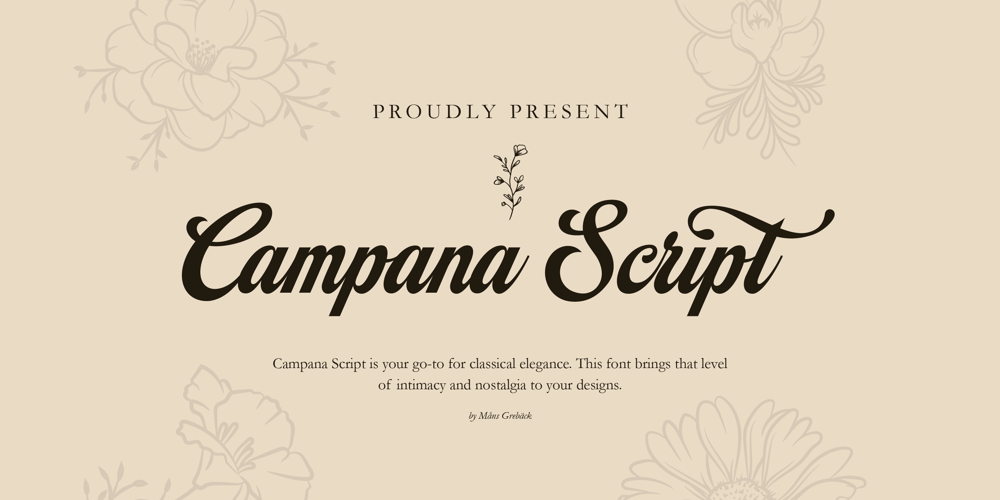
Campana Script Font Family was designed by Måns Grebäck and published by Mans Greback. Campana Script contains 4 styles and family package options. Campana Script is your go-to for classical elegance. Picture walking into an old bookstore and discovering a handwritten love letter tucked inside a dusty novel. This font brings that level of intimacy and nostalgia to your designs. Designed with heavy lines and intricate swashes, Campana Script suits formal applications like wedding invitations, certificates, and classic logotypes. Use underscore _ to make a swash. Example: Deco_rative Use multiple underscores to make different underlines. Example: Candy__shop Campana Script is built with advanced OpenType functionality and has a guaranteed top-notch quality, containing stylistic and contextual alternates, ligatures, and more features; all to give you full control and customizability. It has extensive lingual support, covering all Latin-based languages, and includes all the characters and symbols you’ll ever need.Behind this exquisite creation is Mans Greback. Known for pushing the boundaries of type design, Greback has ventured into the intricate intricacies of aesthetic diversity with Campana Script. His portfolio is a testament to his versatility and daring, turning simple alphabets into powerful visual narratives.